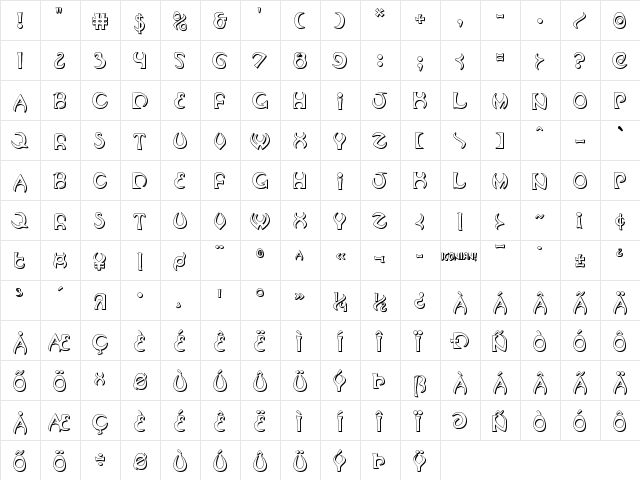
Oubliette 3D Regular
Design Context for Oubliette 3D Typeface
Oubliette 3D is a composed and adaptable typeface that performs quietly and consistently across a wide range of design contexts.